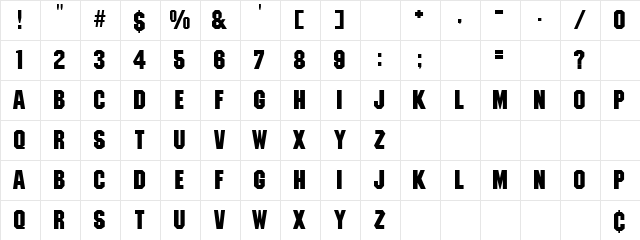
Savanarola Heavy Bold Bold
Design Context for Savanarola Heavy Bold Typeface
Savanarola Heavy Bold takes a measured approach to typography — its balanced proportions and neutral character make it a reliable workhorse for both digital and print work. The heavy weight commands attention and anchors typographic hierarchies.